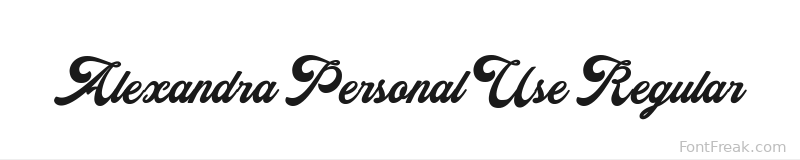
Alexandra Personal Use Regular
About Alexandra Personal Use Regular
The Alexandra Personal Use Regular font, designed by Billy Argel Fonts, is a captivating script typeface that beautifully blends elegance with a touch of playfulness. This font is characterized by its fluid curves and flowing connections, making it an excellent choice for projects that require a sophisticated yet personable touch. The stroke weight varies slightly, providing a dynamic contrast that enhances the visual appeal without overwhelming the reader. The generous spacing between letters adds to its readability, ensuring that each word stands out while maintaining a cohesive look.
This versatile font is perfect for a variety of use cases. It shines in wedding invitations, where its romantic flair can set the tone for the occasion. Additionally, it works well on restaurant menus, where a stylish presentation can elevate the dining experience. Graphic designers will find it invaluable for creating eye-catching movie posters, lending a sense of drama and allure. Small business owners can also utilize Alexandra Personal Use Regular for branding materials, adding a unique personality to their logos and promotional content. Content creators seeking to enhance their blogs or social media graphics will appreciate its charm and versatility.
The target audience for this font includes graphic designers, small business owners, and content creators who are looking for a distinctive typeface to enhance their projects. Those in need of a font that conveys warmth and creativity will find Alexandra Personal Use Regular to be a perfect fit.
What sets this font apart is its ability to combine elegance with approachability, making it suitable for both formal and casual contexts. Whether used in print or digital formats, the Alexandra Personal Use Regular font free download offers an opportunity to add a unique, stylish touch to any creative endeavor.